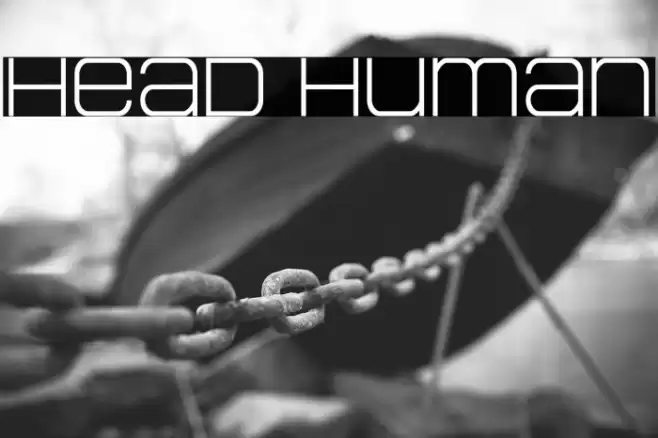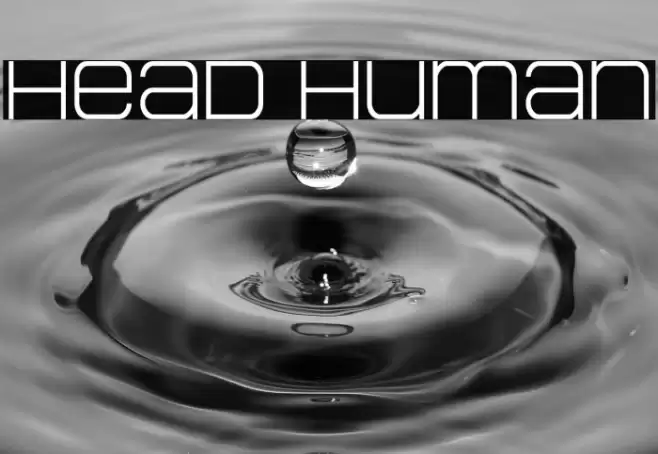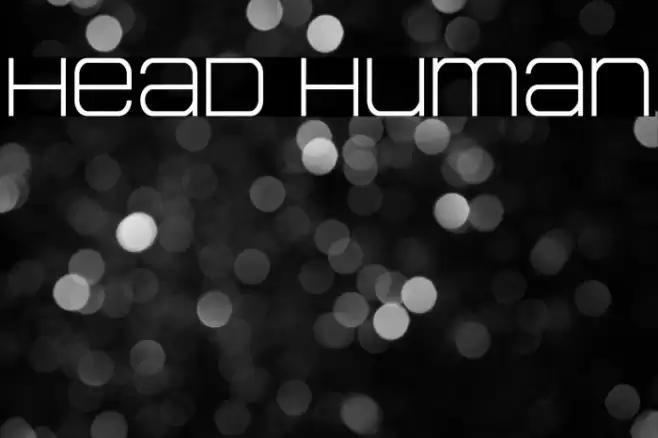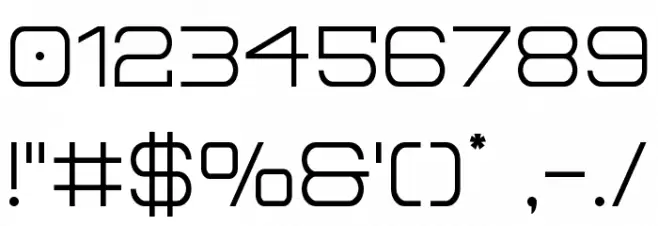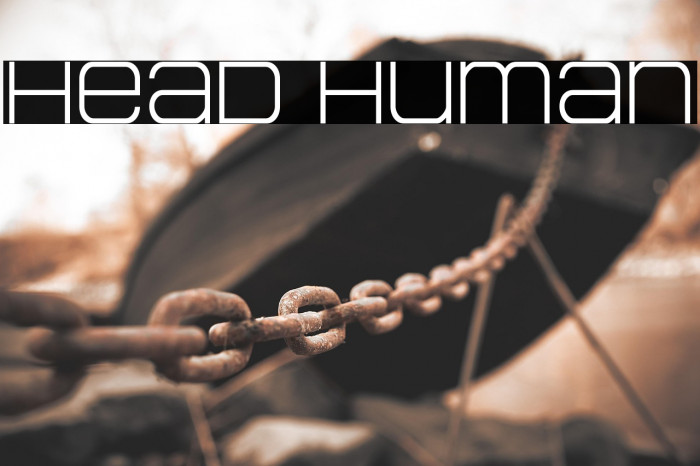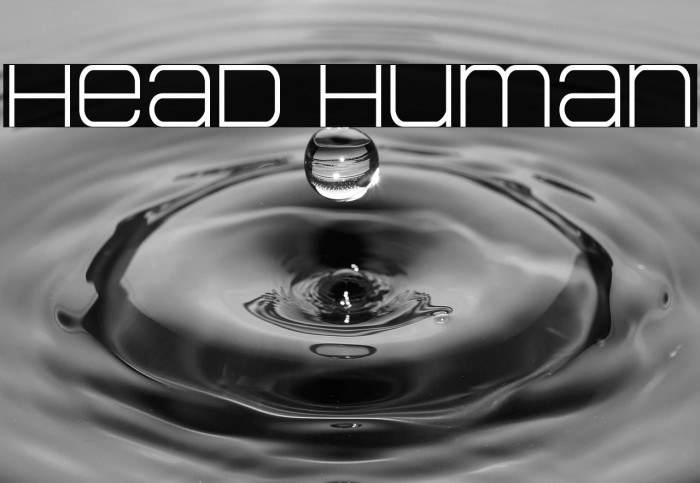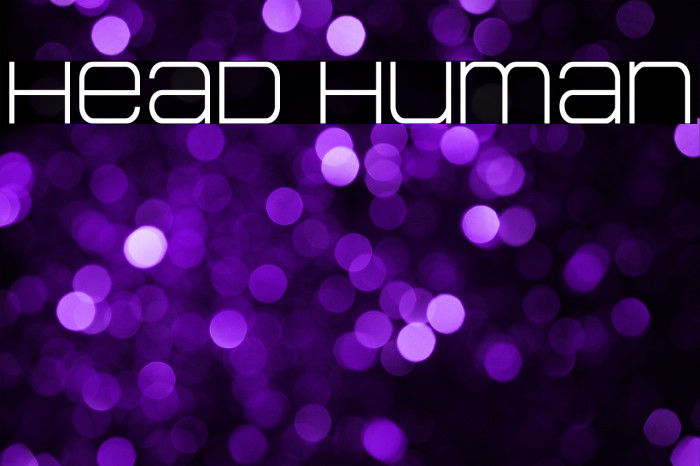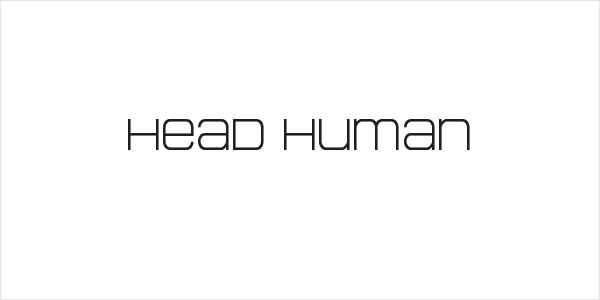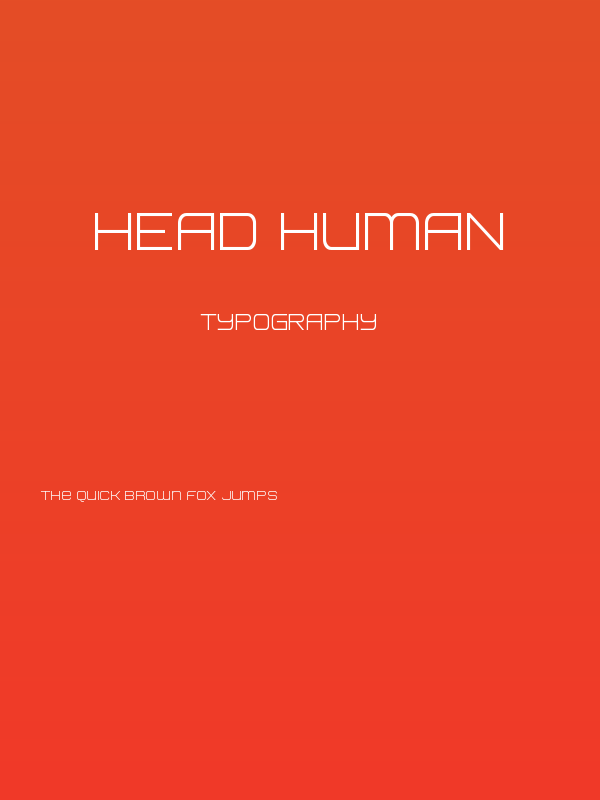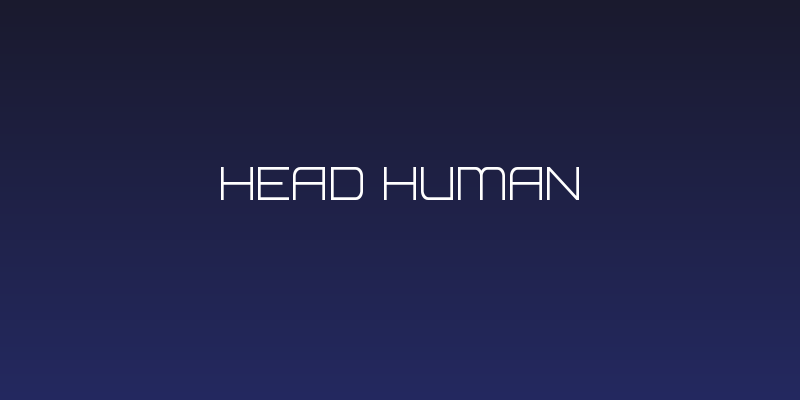
Head Human Font
Head Human Description
This font features a modern, geometric design with a clean and minimalistic aesthetic. The characters are constructed with consistent line thickness, giving it a uniform appearance. The rounded edges and open counters contribute to its futuristic feel, making it suitable for contemporary design projects. The uppercase and lowercase letters maintain a similar width, enhancing readability. The numerals and special characters are designed to match the overall style, ensuring cohesion across different text elements.
A modern, geometric font with consistent line thickness and rounded edges from Uncategorized fonts.
- Proposed Projects: Ideal for technology branding, digital interfaces, modern advertising, and futuristic design themes.
- Use Case: Logos, Headlines, Digital Interfaces